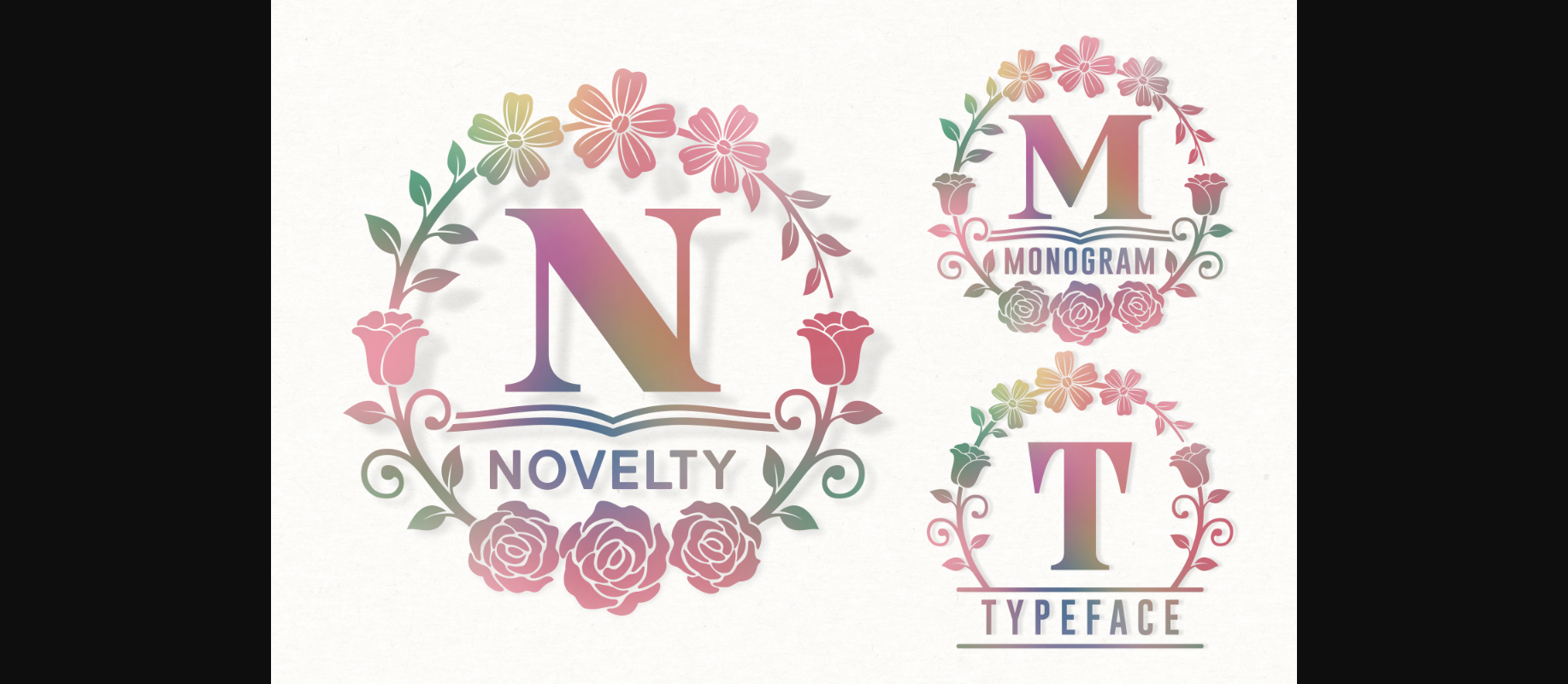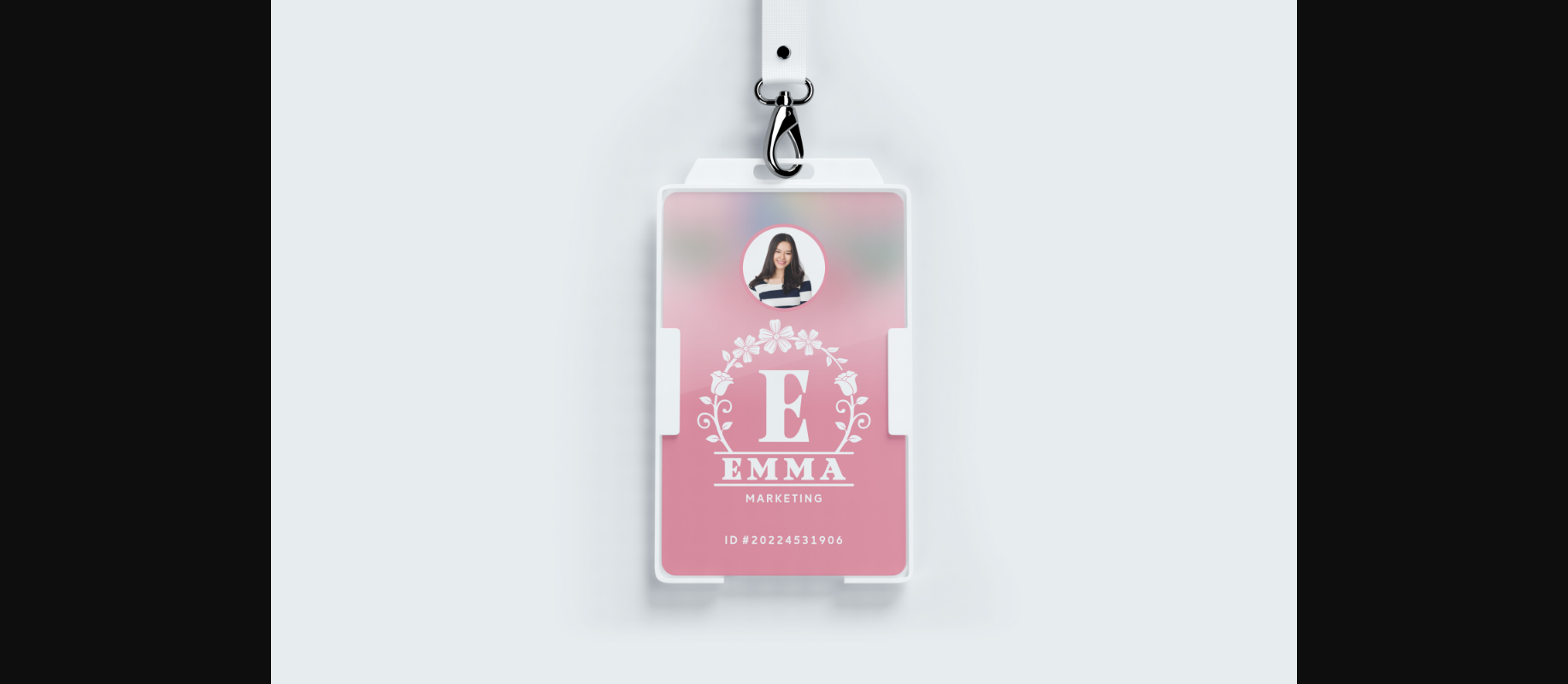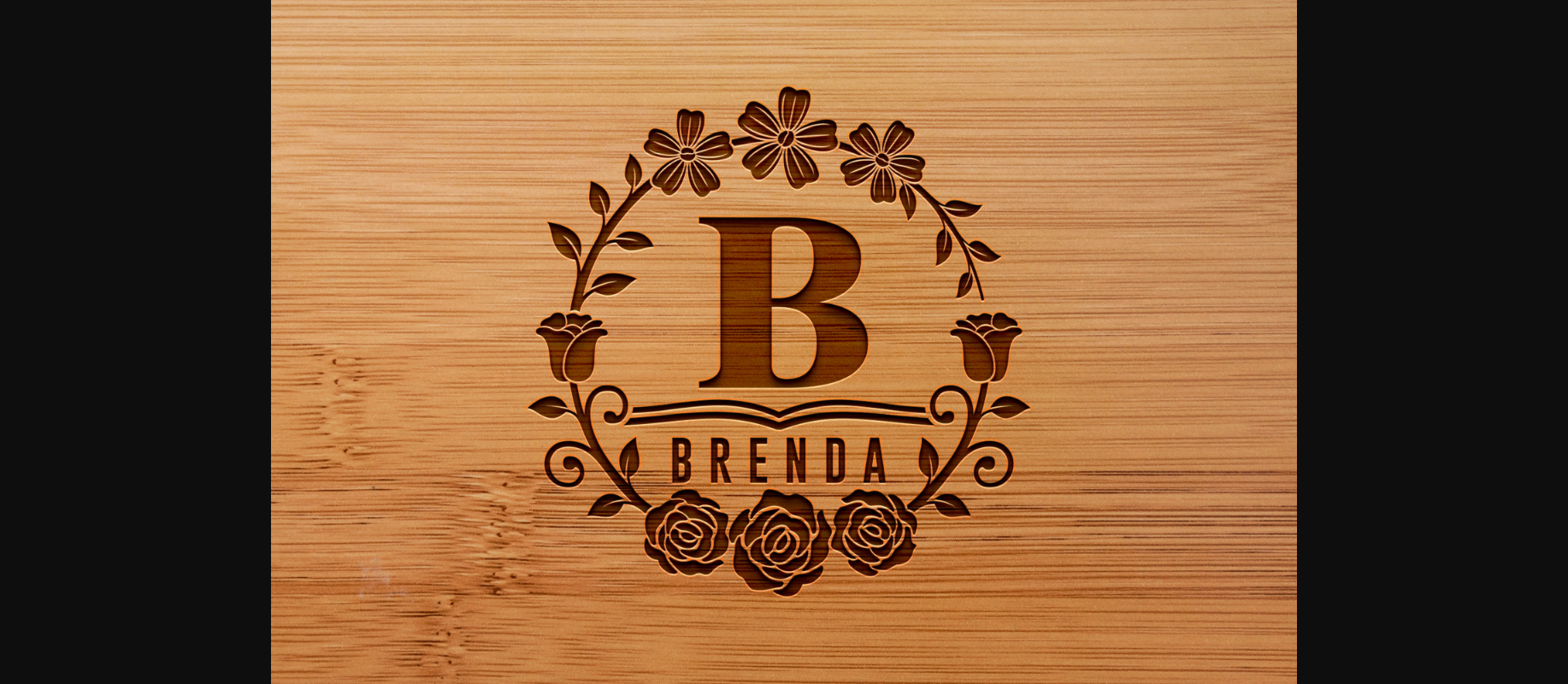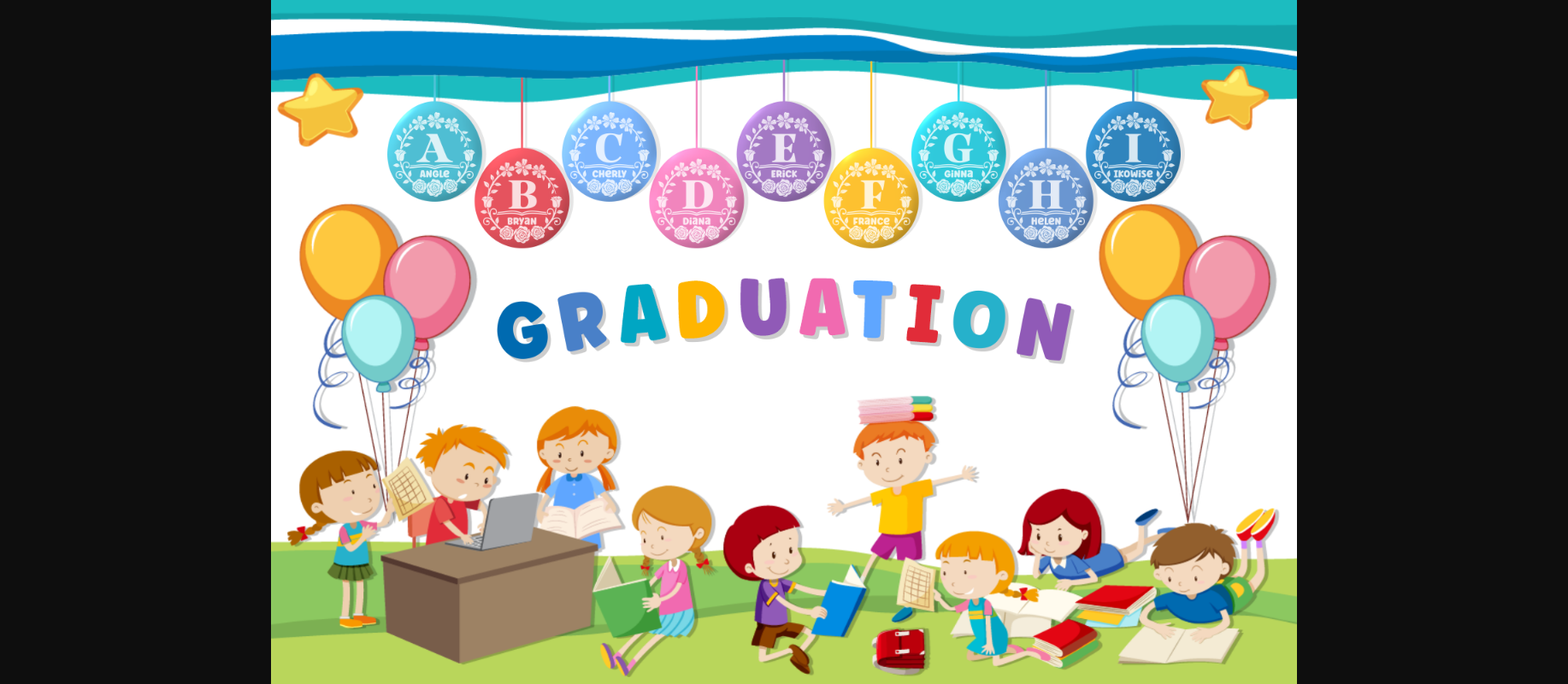
About Novelty Font
Novelty is an original and graceful decorative font. Fall for its ravishing style and use it to create gorgeous wedding invitations, beautiful stationary art, eye-catching social media posts, and much more!